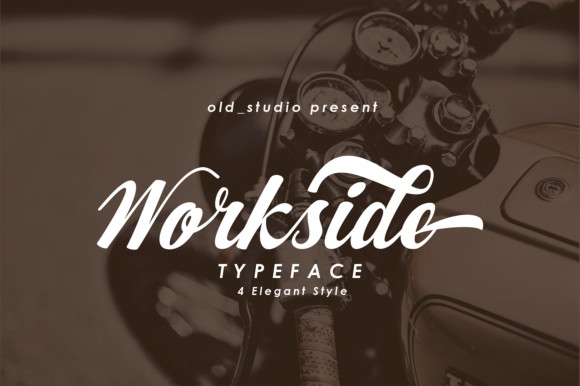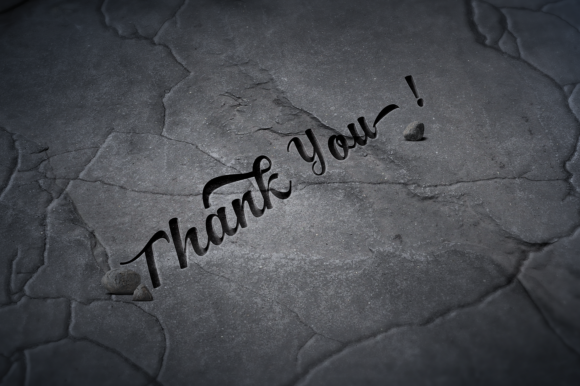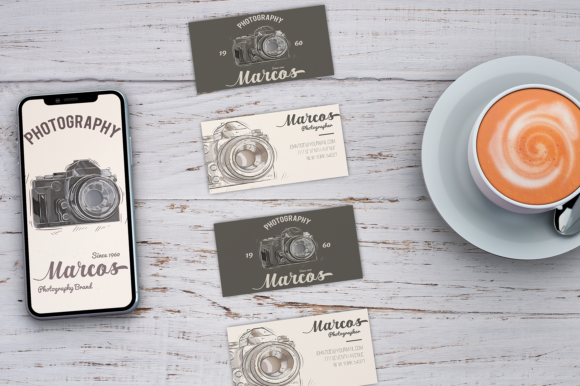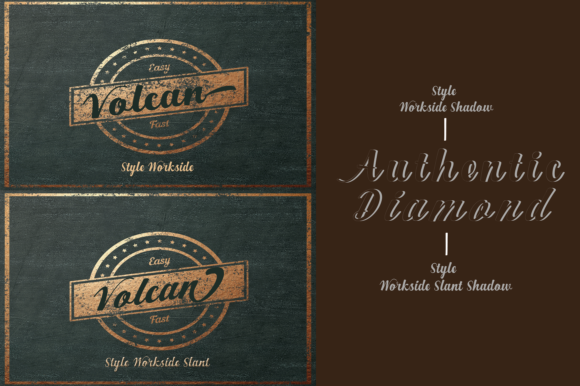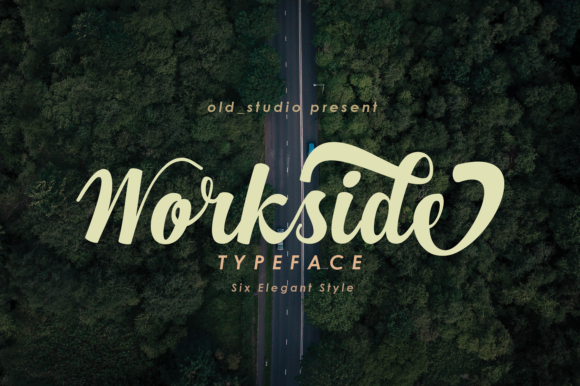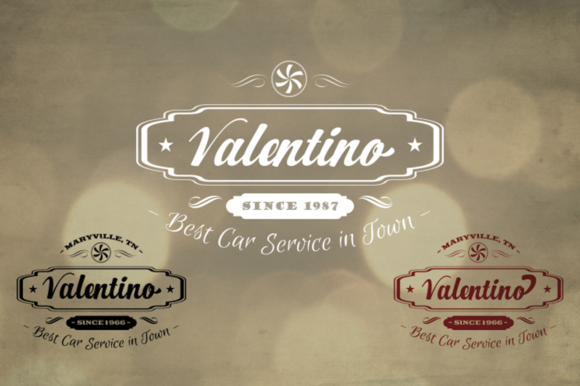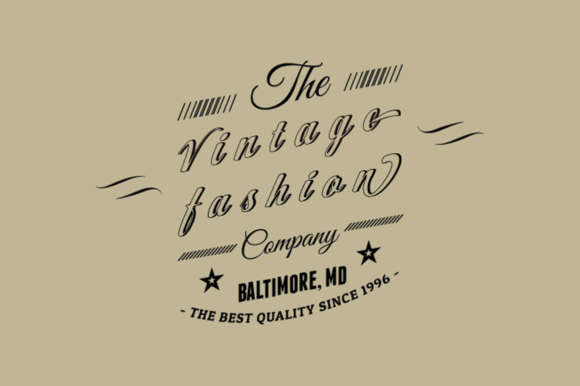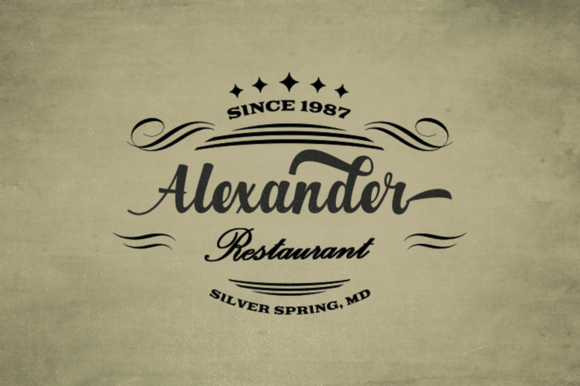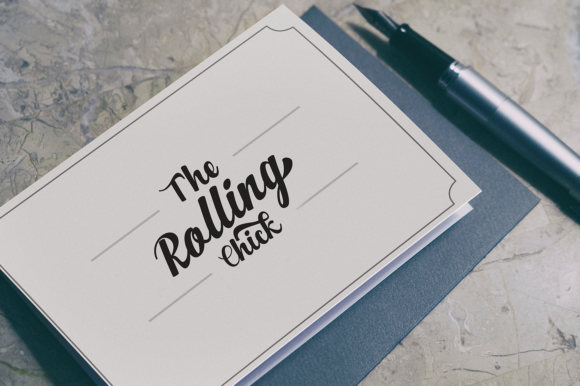
Workside Script Font
About Workside Script Font
The Workside is a fresh, modern script font that comes with a vintage and neat style. It’s easy to use and can be mixed and matched easily with other fonts.
The Workside has a modern take on classic Gothic typefaces. The typeface features two versions: regular and shadow, the 2 versions come in 2 different styles: slant and shadow slant.